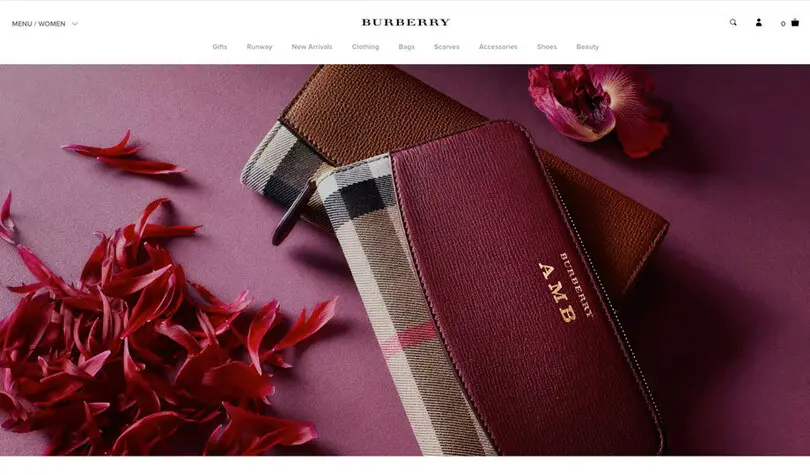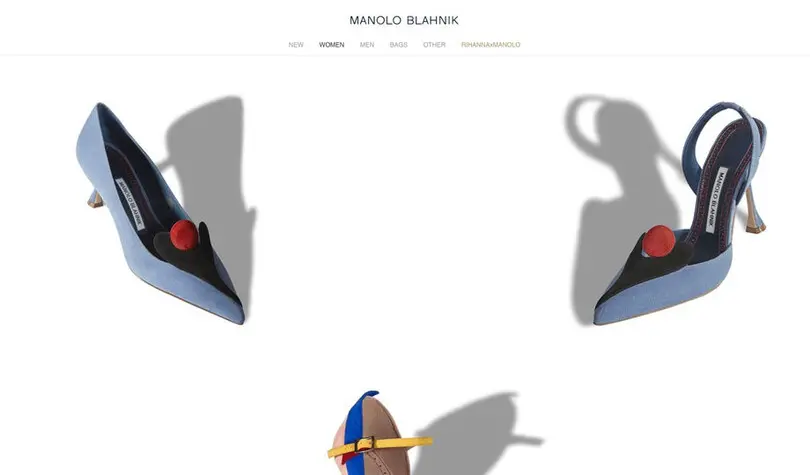
Fonts and luxury brands: Fashion.
Key Takeaways
- Font management challenges show luxury brands often prioritize style over function, hurting readability online.
- 70% rely on geometric sans serifs like Futura and Proxima Nova, while 40% still use browser safe fonts.
- For readers, it highlights that weak type choices dilute brand identity and risk undermining premium positioning.
Following on from our research into how fonts are used in the beauty and automotive industries, in part three we take a look at ten luxury fashion brands. What is the most fashionable font style? How do these brands use typefaces to stand out from competitors, and are there opportunities that are being missed?
Gucci
Large images and geometric typography create a sense of elegance, modernity and luxury. The use of Futura in body copy perfectly complements Granjon in the logo, both are wide, open, approachable and understated. The use of Times on item descriptions enhances the luxury feel, but is a free and unoriginal choice with hairline strokes which don’t hold up well at the small sizes used.
Tiffany & Co
A high contrast, delicate serif typeface named Sterling by Hoefler Type Foundry is used in both the logo and as the primary font. Due to the wispy nature of the hairlined strokes the type disappears at small sizes especially on the navigation menu. Set in all caps for the menu and captions and upper and lowercase for body copy it looks luxurious and elegant. Humanist sans Avenir Next (and Helvetica) are also used in some sections offering a modern twist.
Jimmy Choo
The contrasting narrow and wide nature of the bespoke University Roman JIMMY CHOO word mark allows the main typeface Proxima Nova to flourish, forming a dynamic visual relationship. Simple photography along with the clean, modern and legible Proxima Nova creates an elegant, classic and understated vibe.
Louis Vuitton
The bespoke ‘LV’ monogram has thick chunky serifs and weighted thin strokes. Based on the Georgia typeface it looks strong and robust. Futura is used for the ‘Louis Vuitton’ wordmark and text, creating a nice visual balance with the two typefaces offseting each other. On their website Georgia is also used for text, with Austin Roman and LV Clemence used sporadically creating a slightly confusing typographical hierarchy.
Dior
The Dior wordmark personifies elegance alongside the rich and dynamic full screen images which work well with the fonts to create a sense of style, class and sophistication. The supporting typeface is Century Gothic, with the captions set in all caps and the body copy in upper and lowercase. The use of Century Gothic Light makes the text appear grey which knocks it back. The website also uses system font Arial.
Prada
The Prada logo is a bespoke modern serif, which is bold, iconic and distinctive. The brand uses large moving images on their website that span the whole layout with minimal typography. The main nagivation menu is set in Univers all caps with the body copy set in a free open source font called Source Sans Pro. Prada have missed an opportunity to reflect their style in their typography which looks like an after thought.
Burberry
The Burberry logo is a bespoke expanded version of Bodoni, a modern serif style that conveys high quality and luxury. Proxima Nova is the primary font used for headings, caption settings and body copy in both upper and lowercase. A lot of the type (navigation and text) is small and difficult to read. The secondary typeface (Times), is another unimaginative choice that is free to use.
Armani
At times the hairline nature of the Armani Didot logo disappears but this typeface is a classic example of luxury, style and couture. Montserrat is a robust, open and harmonious geometric sans. Dark, masculine colours spread across the landscape and serious imagery. The brand is modern, classic and iconic – and the typography reflects this.
Manolo Blahnik
Manolo Blahnik have opted for Arial and it’s the only font used throughout. It looks very consistent, but Arial is a neo grotesque available on every single computer in existence so it’s a strange and unimaginative choice for such a high end brand. On the plus side many man hours were used to hint this font for screen usage so it is very functional. It has been set on a white background with lots of space to create a sense of sophistication. All caps have been used for headings and navigation alongside very luxurious imagery but the use of a core font is a wasted opportunity in terms of brand differentiation in this sector.
Dolce & Gabbana
This brand is a mishmash of fonts with several different styles in use. As well as the geometric sans, transitional serif and humanist sans there’s a chalky handscript, and a Bodoni! A wild mixture of style and personality. The D&G logo is Futura Bold weight and has wide, round and geometric proportions. The lighter weights that are used in the navigation and caption convey a sense of grace and elegance but the lack of cohesion between Futura and Avenir lets this brand down.
Overall there is a tendancy to prioritise style over function alongside a surprising lack of imagination when it comes to typography. There are fundamental issues with type setting in terms of weight, colour and size. Many of the layouts simply aren’t legible on screen (eg Burberry, Tiffany, Dior and Gucci). The use of free fonts is common and in conflict with the luxury image. Brand is everything and although not every brand will see the value in having a bespoke typeface, by using Arial or Times there is no differentiation between high end or budget, especially on mobile where there is very little space for images.